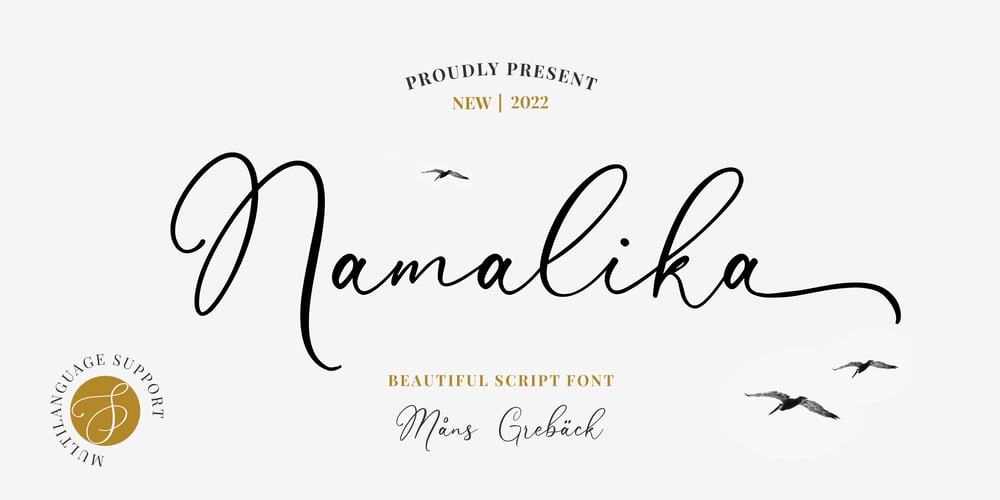
Namalika
Namalika font
Namalika Font Family was designed by Måns Grebäck and published by Mans Greback. Namalika contains 4 styles and family package options. Namalika is a beautiful calligraphy font. In a feminine and wonderful style, this flowing script will be your favorite logotype and signature lettering. This cursive handwriting is drawn and created by Toni Studio and Mans Greback in 2022, and has an optimistic character and a humble personality.Use underscore _ after any word to make a swash. Example: Namalika_(Download required.)The Namalika family consists of four handwritten fonts:Regular, Italic, Bold, Bold ItalicThe font is built with advanced OpenType functionality and has a guaranteed top-notch quality, containing stylistic and contextual alternates, ligatures and more features; all to give you full control and customizability. It has extensive lingual support, covering all Latin-based languages, from Northern Europe to South Africa, from America to South-East Asia. It contains all characters and symbols you’ll ever need, including all punctuation and numbers.